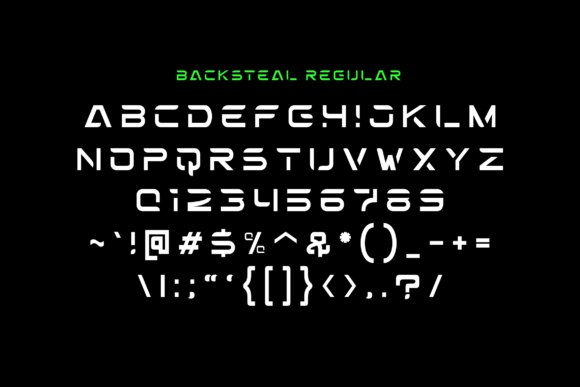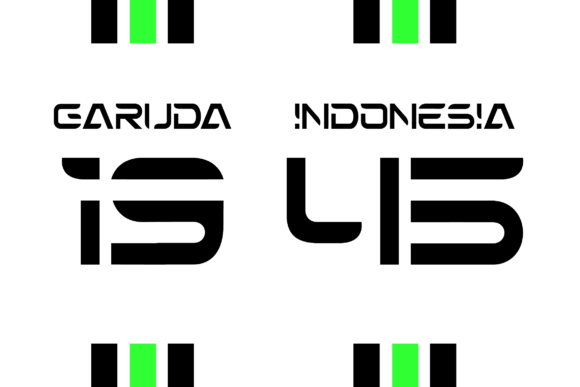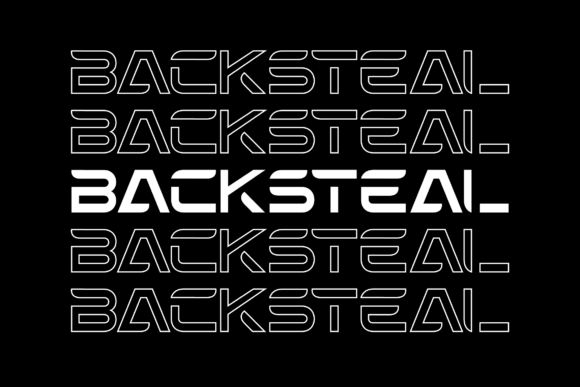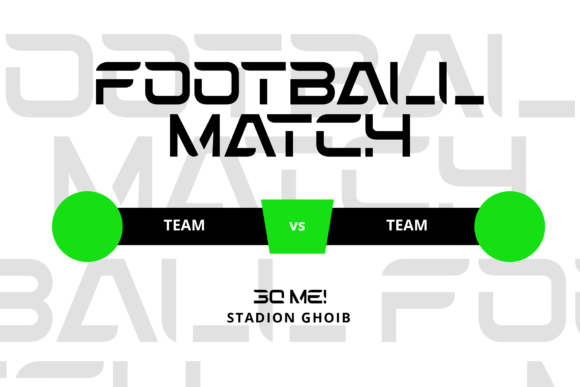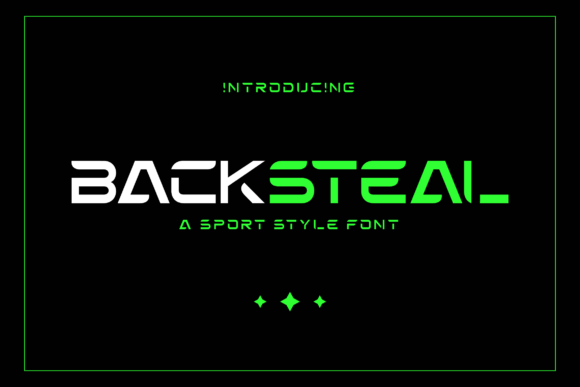
Introducing Backsteal Font: The Ultimate Sport-Style Font for Designers and Crafters
Are you a designer or crafter looking for a font that can add a touch of sportsmanship to your projects? Look no further than Backsteal Font! This sport-style font is perfect for a wide range of applications, from sports apparel and promo materials to large headlines and jersey designs. In this article, we’ll take a closer look at the features and benefits of Backsteal Font, and explore how it can elevate your designs to the next level.
What is Backsteal Font?
Backsteal Font is a modern, sport-style font that is designed to evoke the spirit of competition and athleticism. Its bold, dynamic lines and sleek curves make it perfect for creating eye-catching designs that demand attention. Whether you’re designing a logo, a jersey, or a promotional item, Backsteal Font is the perfect choice for adding a touch of sportsmanship to your project.
The Versatility of Backsteal Font
One of the key benefits of Backsteal Font is its versatility. This font can be used across a wide range of applications, from sports apparel and promo materials to large headlines and jersey designs. Its bold, dynamic lines and sleek curves make it perfect for creating eye-catching designs that demand attention. Whether you’re designing a logo, a jersey, or a promotional item, Backsteal Font is the perfect choice for adding a touch of sportsmanship to your project.
Perfect for Sports, Apparel, Promo, and Large Headline Uses
Backsteal Font is specifically designed for use in sports, apparel, promo, and large headline applications. Its bold, dynamic lines and sleek curves make it perfect for creating eye-catching designs that demand attention. Whether you’re designing a logo, a jersey, or a promotional item, Backsteal Font is the perfect choice for adding a touch of sportsmanship to your project. Its versatility allows you to brand each sport, so you could utilize Backsteal on each sports jersey to tie things together!
- Instant recognition: Backsteal Font is designed to grab attention and make a statement. Its bold, dynamic lines and sleek curves make it perfect for creating eye-catching designs that demand attention.
- Versatility: Backsteal Font can be used across a wide range of applications, from sports apparel and promo materials to large headlines and jersey designs.
In conclusion, Backsteal Font is the ultimate sport-style font for designers and crafters. Its bold, dynamic lines and sleek curves make it perfect for creating eye-catching designs that demand attention. Its versatility allows you to brand each sport, so you could utilize Backsteal on each sports jersey to tie things together! With its ease of use, high-quality design, and instant recognition, Backsteal Font is the perfect choice for adding a touch of sportsmanship to your project.